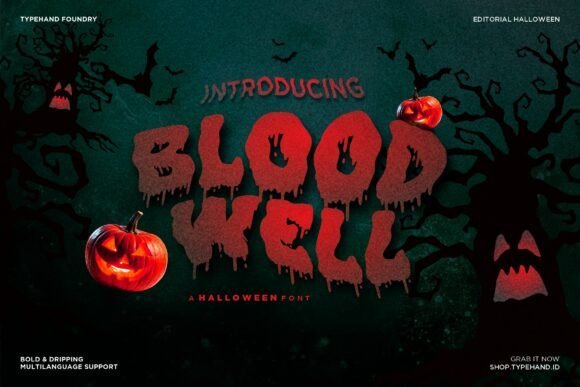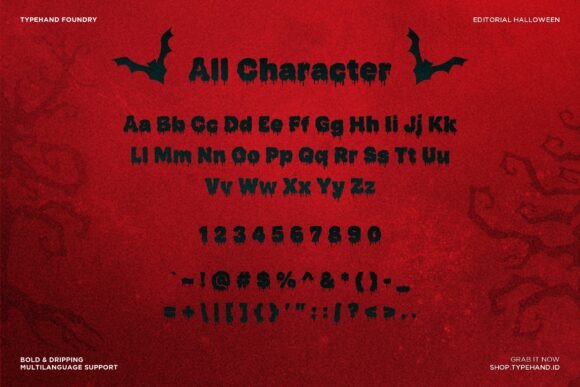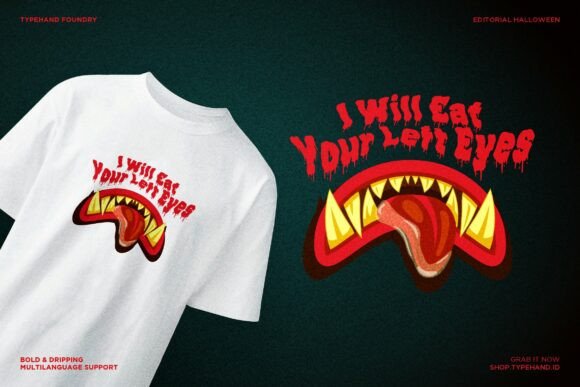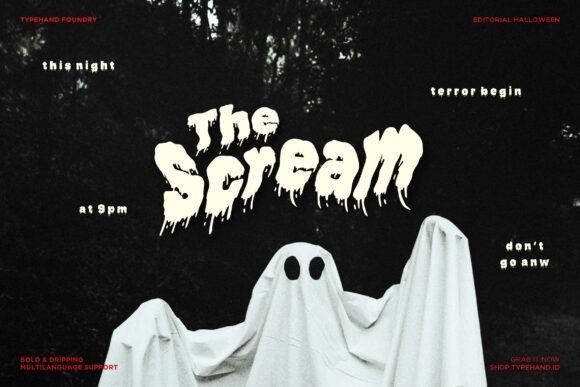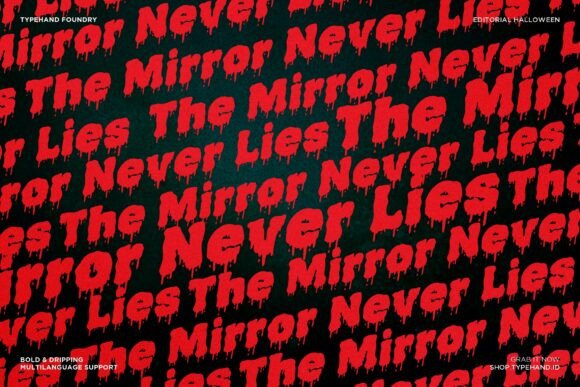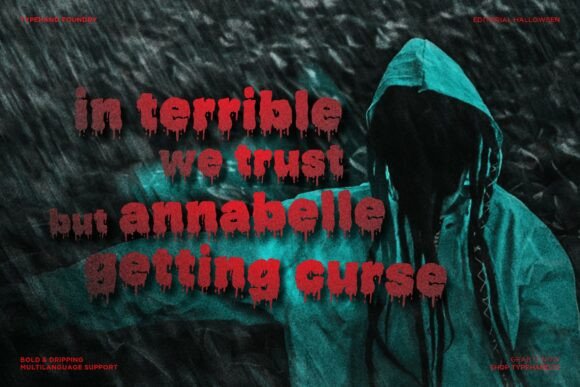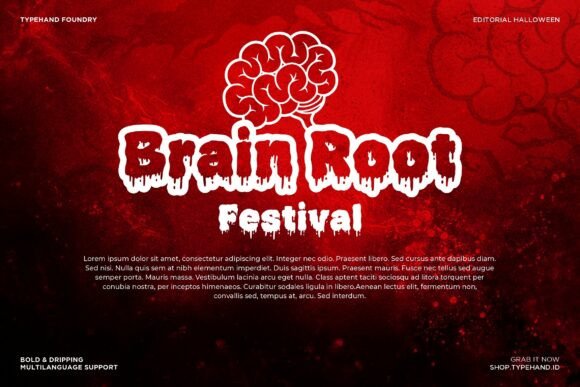
Get Ready for a Bloody Good Time with Blood Well Font
Do you ever find yourself stuck in a design rut, searching for the perfect font to bring your Halloween projects to life? You’re not alone. I’ve been there too, scrolling through font collections, only to find the same old boring fonts that just don’t cut it for the spooky season.
That’s why I’m excited to introduce you to Blood Well Font, a bold, dripping Halloween font designed to add an eerie energy and playful personality to your seasonal creative work. This decorative display font is perfect for designers who need an eye-catching horror font that feels dramatic and easy to use across multiple projects.
Whether you’re creating spooky branding, limited-edition Halloween merchandise, or just need a font that screams “Halloween,” Blood Well Font is the perfect choice. Its versatility and ease of use make it a valuable asset for designers who want to deliver immediate visual impact.
Blood Well Font Key Features
- Font Family: Blood Well Font is a sans-serif font family designed for modern and edgy typography.
- Character Set: The font family includes a wide range of characters, including uppercase and lowercase letters, numerals, punctuation marks, and special characters.
- Unique Characteristics: The font’s bold and edgy design, along with its distinctive letterforms and geometric shapes, make it ideal for use in modern designs, such as logos, titles, and headlines.
Blood Well Font Review
I recently had the chance to work with the Blood Well Font, and I must say it’s a unique and eye-catching choice for any design project. ✨ Here are some things that stood out to me:
- The bold and edgy aesthetic of the font is perfect for designs that need to convey a sense of intensity or drama.
- The font’s versatility makes it suitable for a wide range of applications, from posters and flyers to logos and branding materials.
- The font’s unique letterforms and subtle texture add a touch of sophistication and visual interest to any design.
- The font may be too bold or overpowering for certain designs, particularly those that require a more subtle or understated look.
- The font’s edgy aesthetic may not be suitable for all audiences, particularly those who prefer more conservative or traditional designs.
- The font’s texture and letterforms may not be ideal for designs that require a high level of precision or clarity.
Overall, I think the Blood Well Font is a great choice for designers who want to add a touch of drama and intensity to their designs. While it may not be suitable for every project, it’s definitely worth considering for those that require a bold and eye-catching look.
Getting the Most Out of Blood Well Font
To get the most out of Blood Well Font, experiment with different font sizes, colors, and styles. Use it to create eye-catching headings, titles, or to add a unique touch to your designs.
Blood Well Font is perfect for creating a bold and edgy look in designs such as:
- Music festival posters
- Rock band logos
- Edgy social media graphics